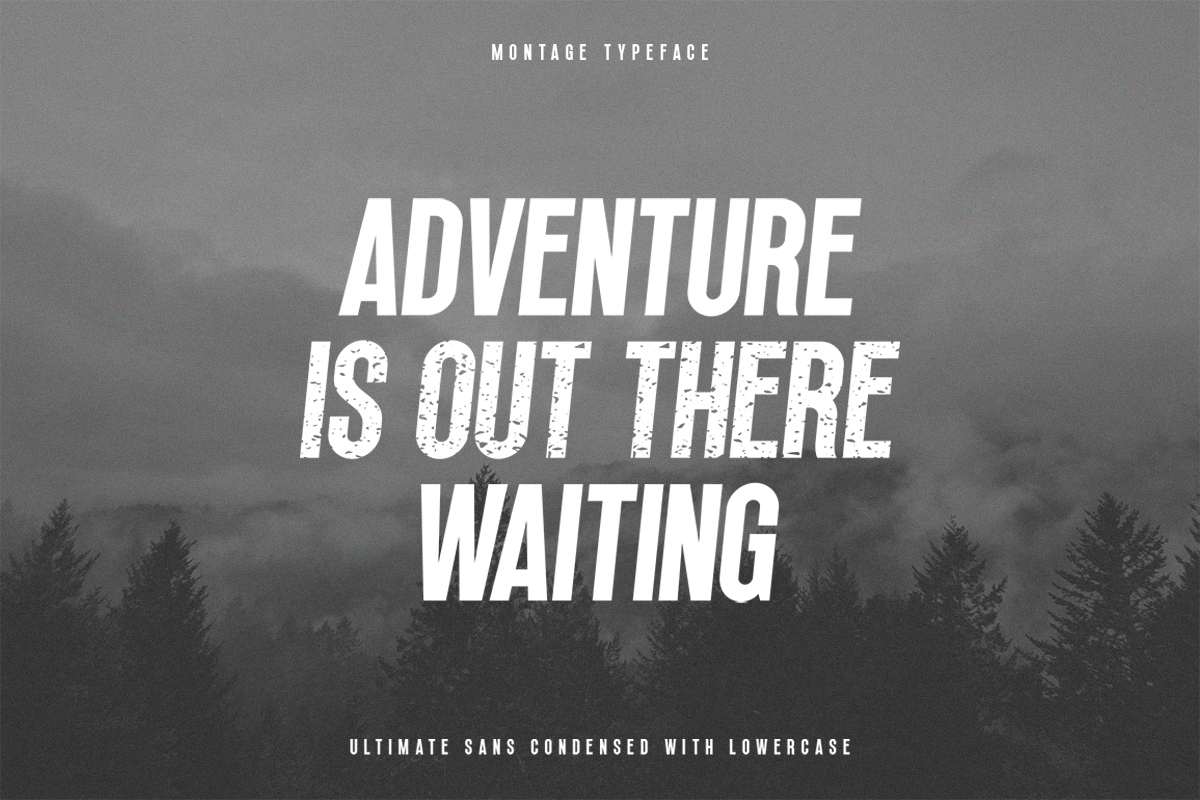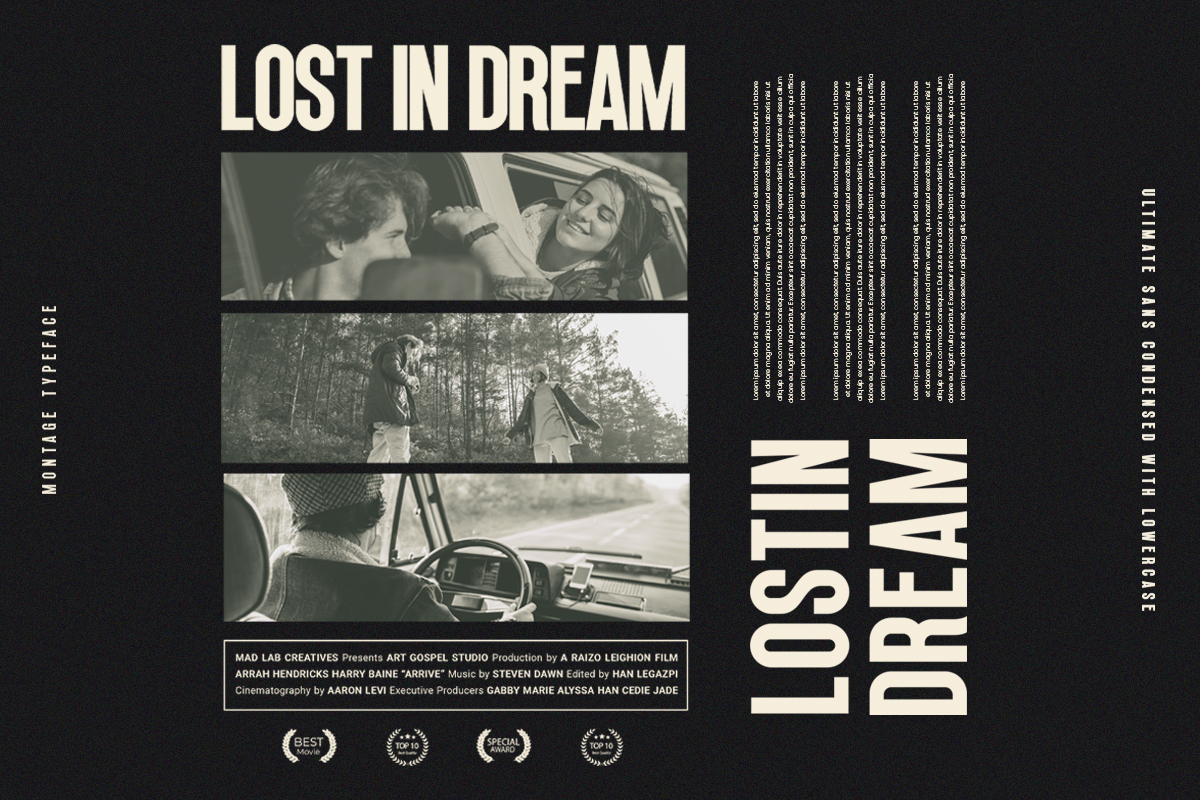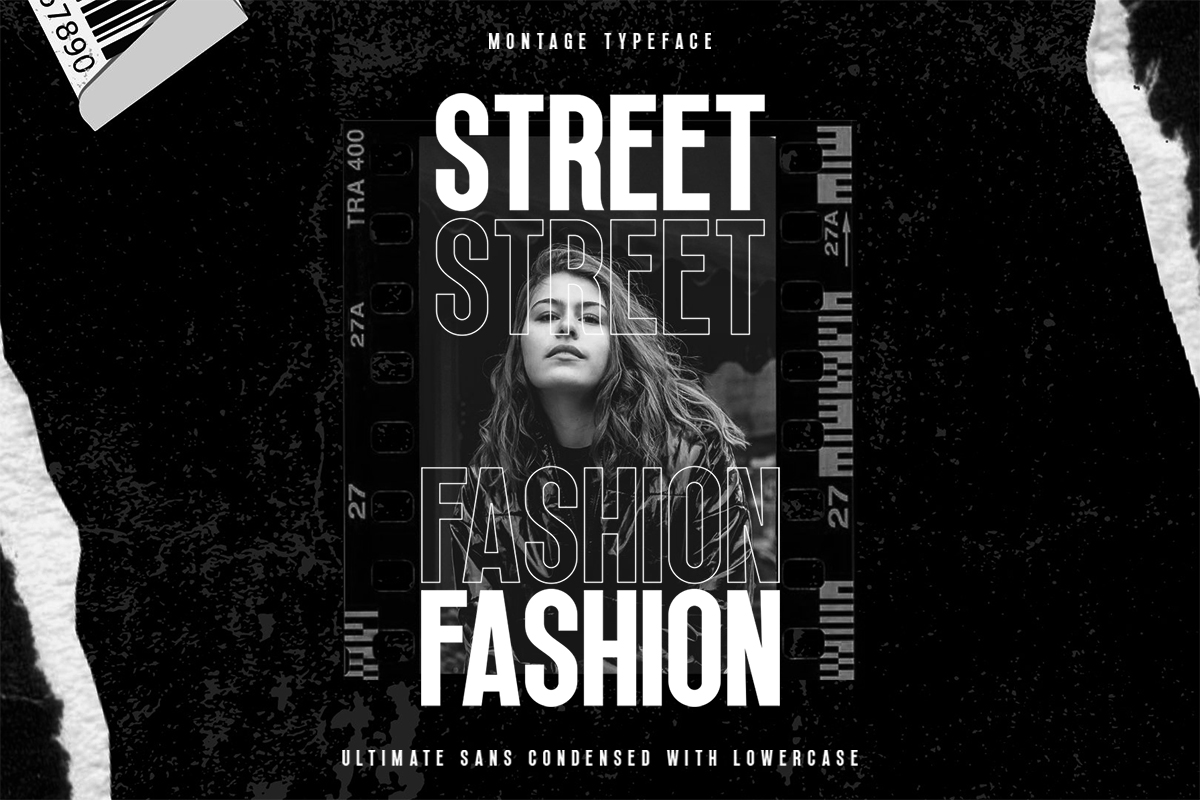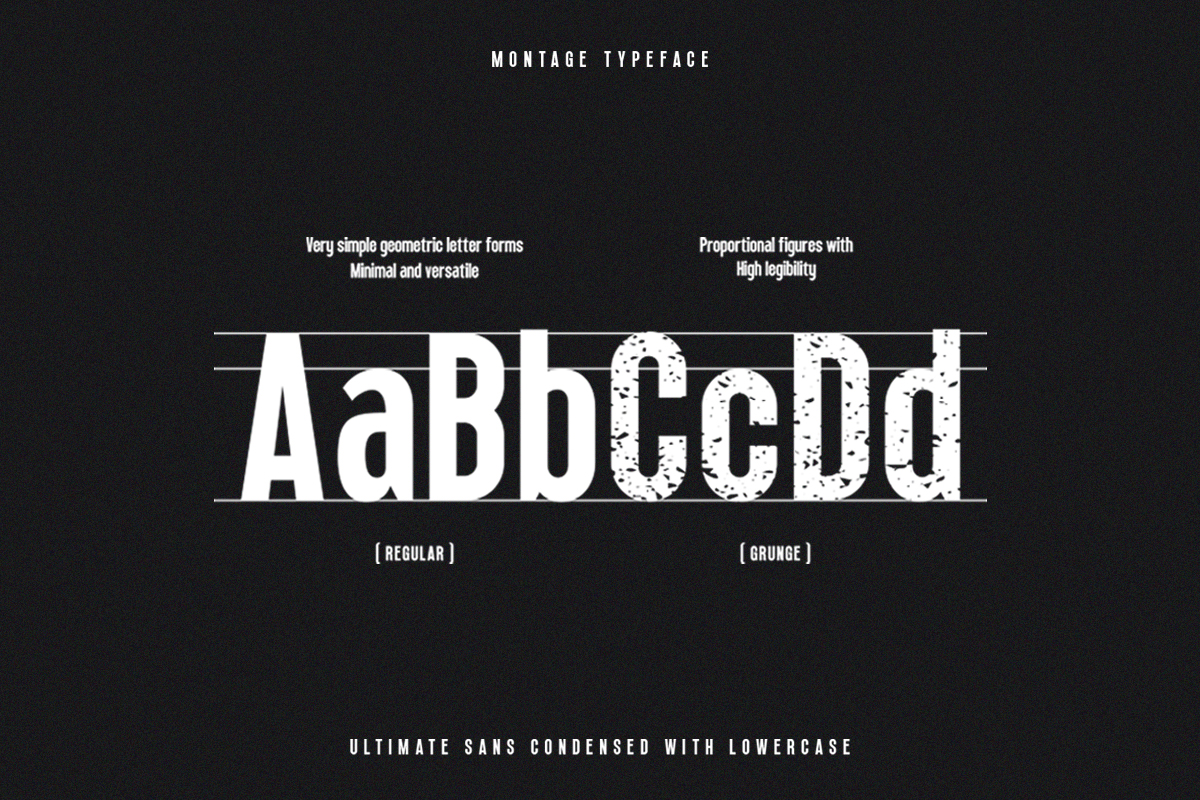
Montage Font
Montage Sans Serif Font
This Is Vintage Sans Display Character Inspired By Condensed and Retro style. Suitable for any design needs, branding, logo, urban design, modern advertising design, Book/Cover Title, special events, adventures, headlines, clothing and more.